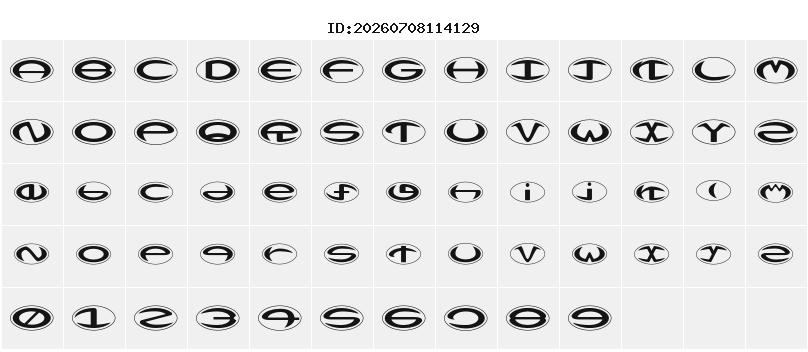
Dactylo SemiBold Preview
About Dactylo SemiBold.otf
Dactylo SemiBold.otf is a modern, elegant sans-serif font designed for ultimate readability and visual harmony. Perfect for branding, headlines, web design, and print materials.